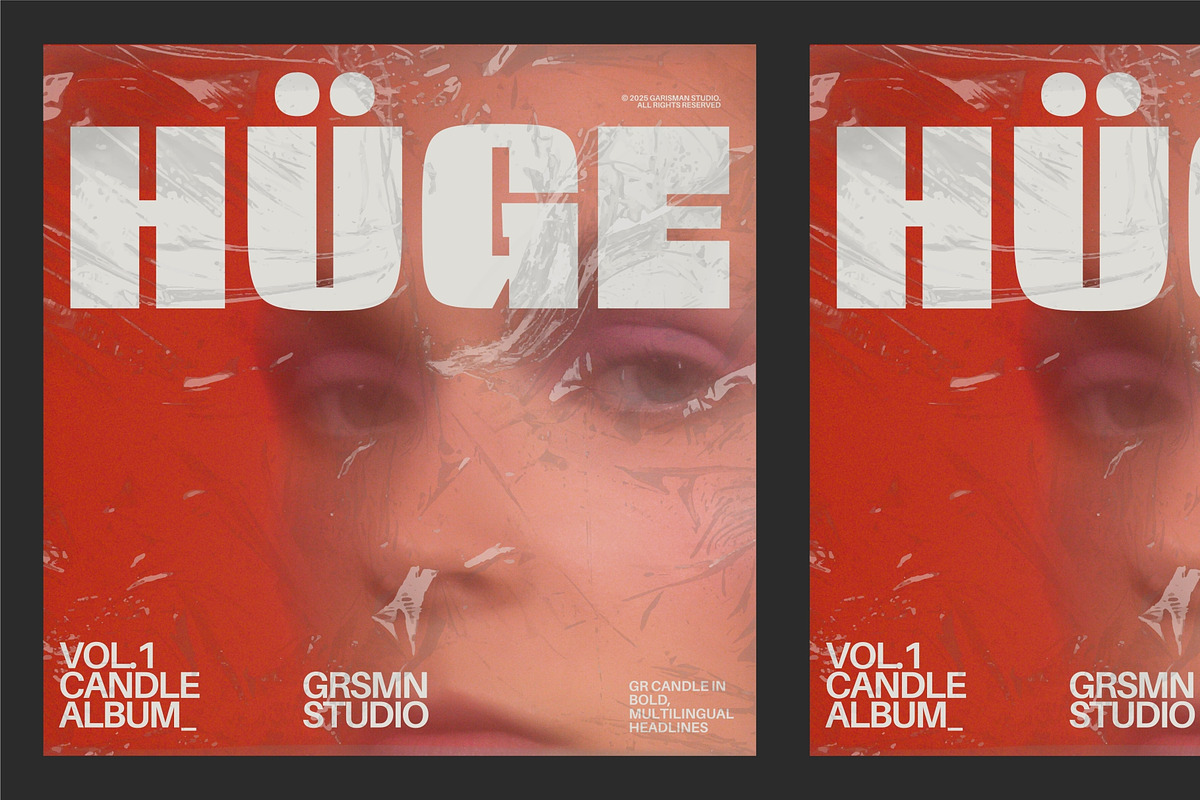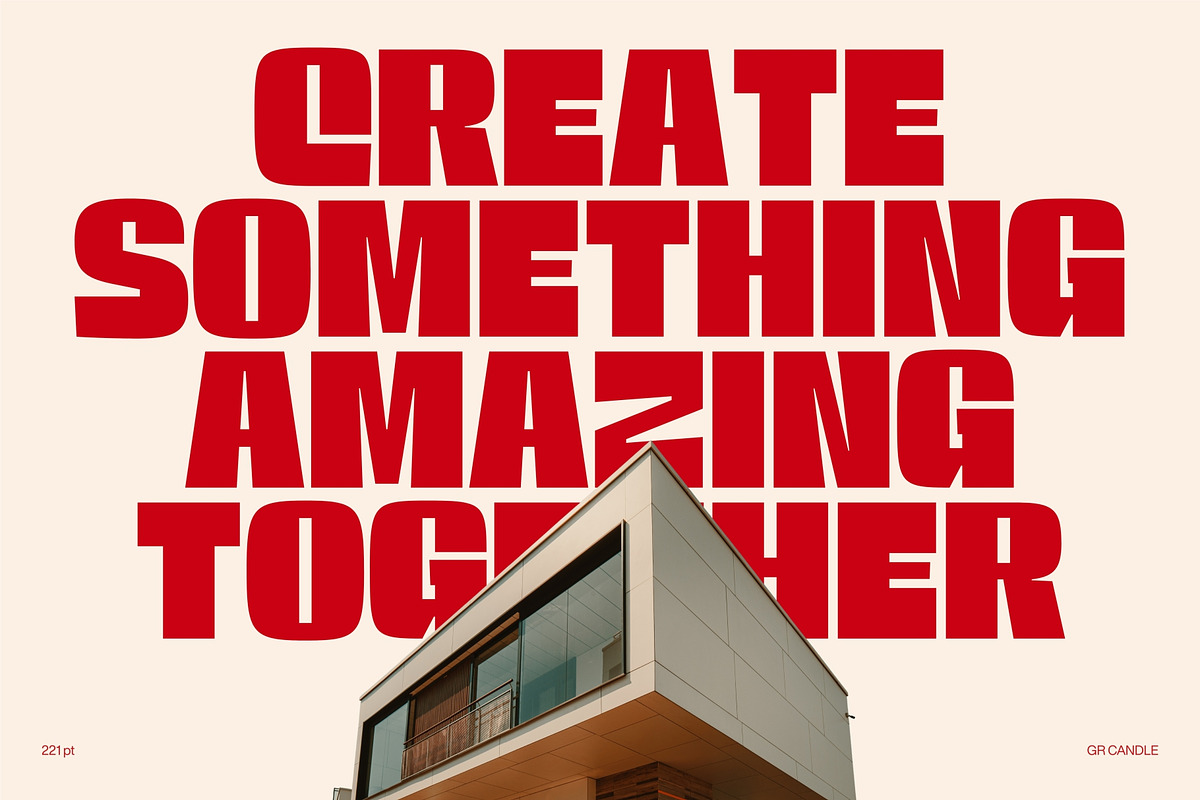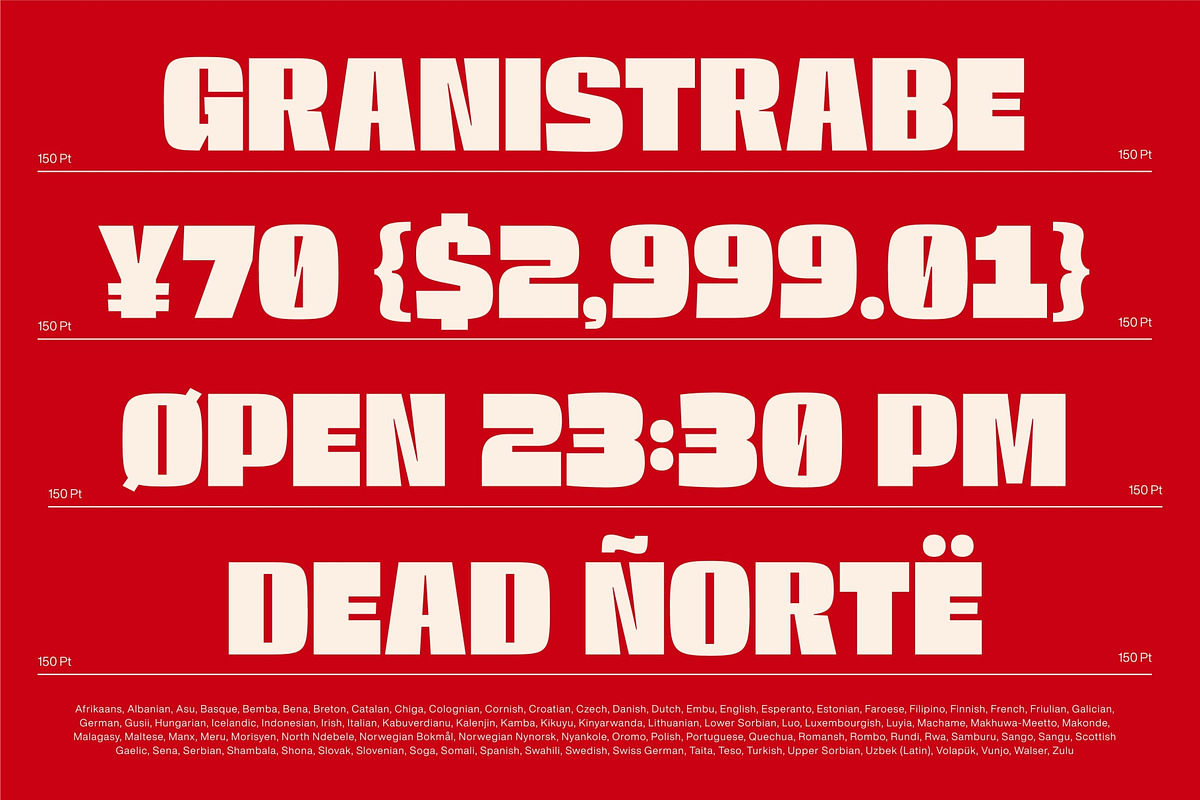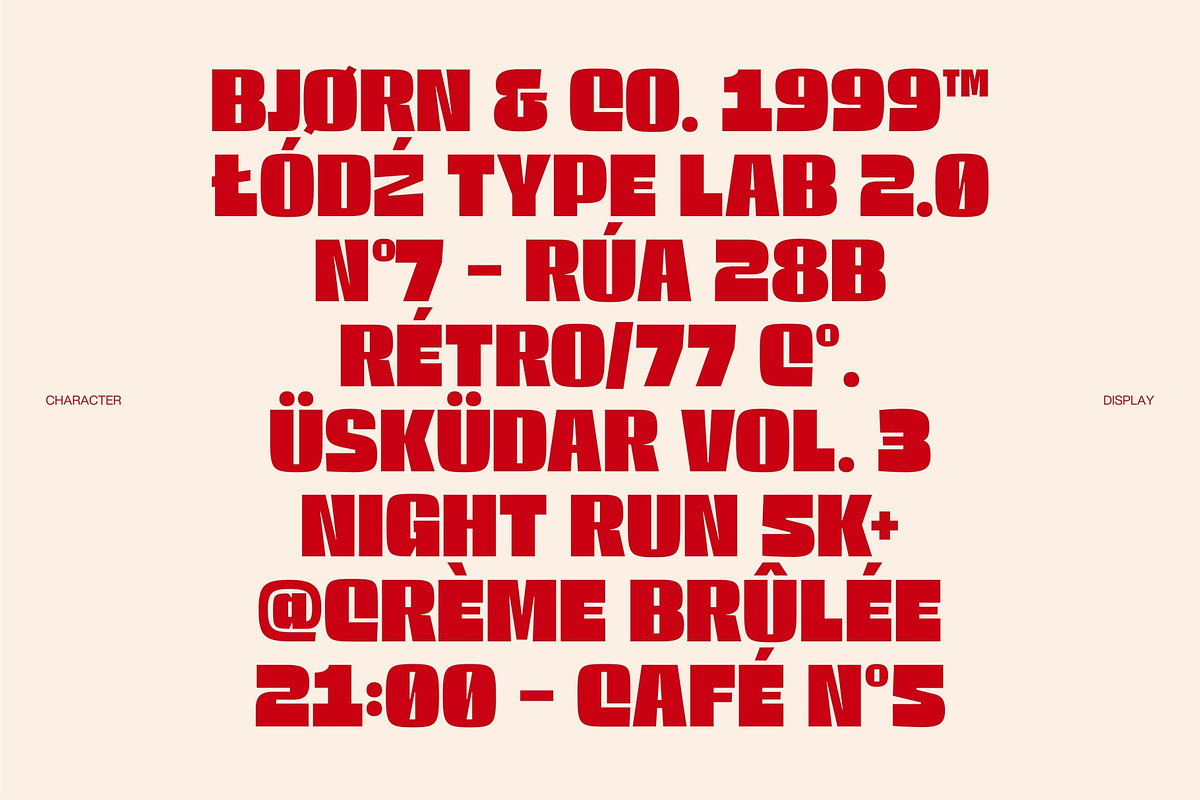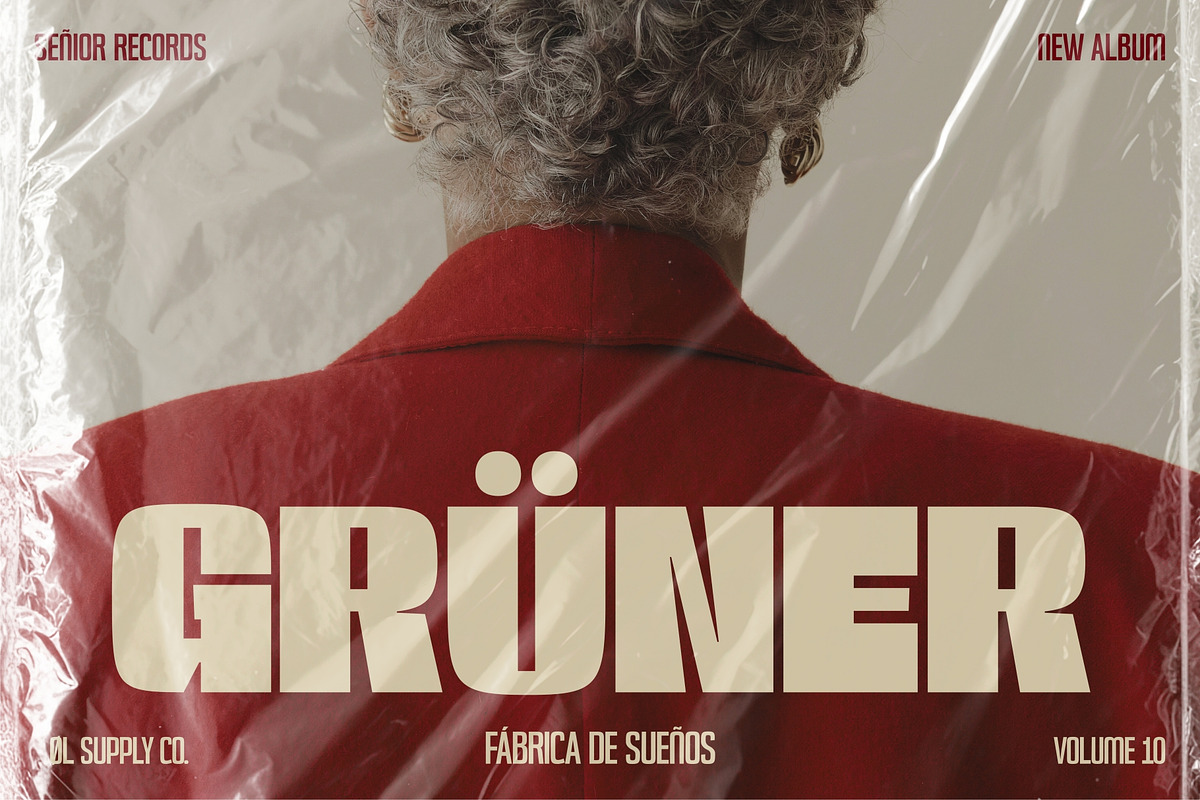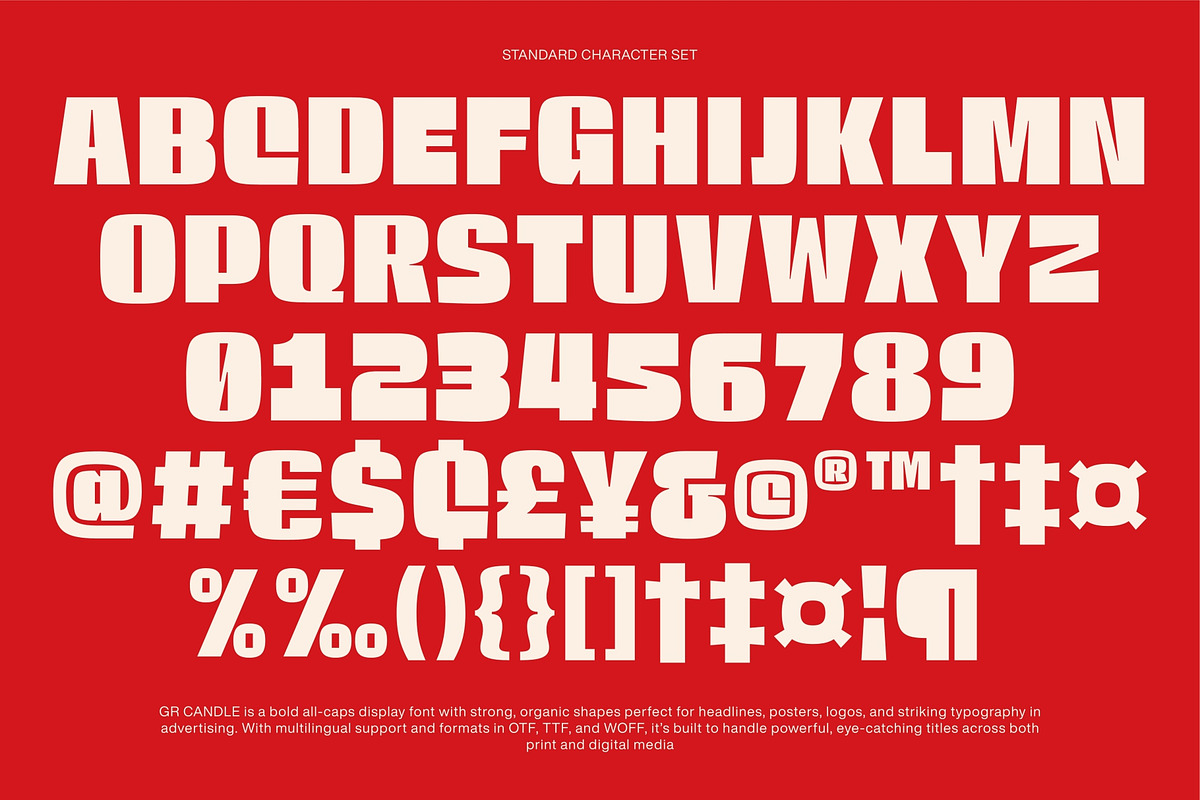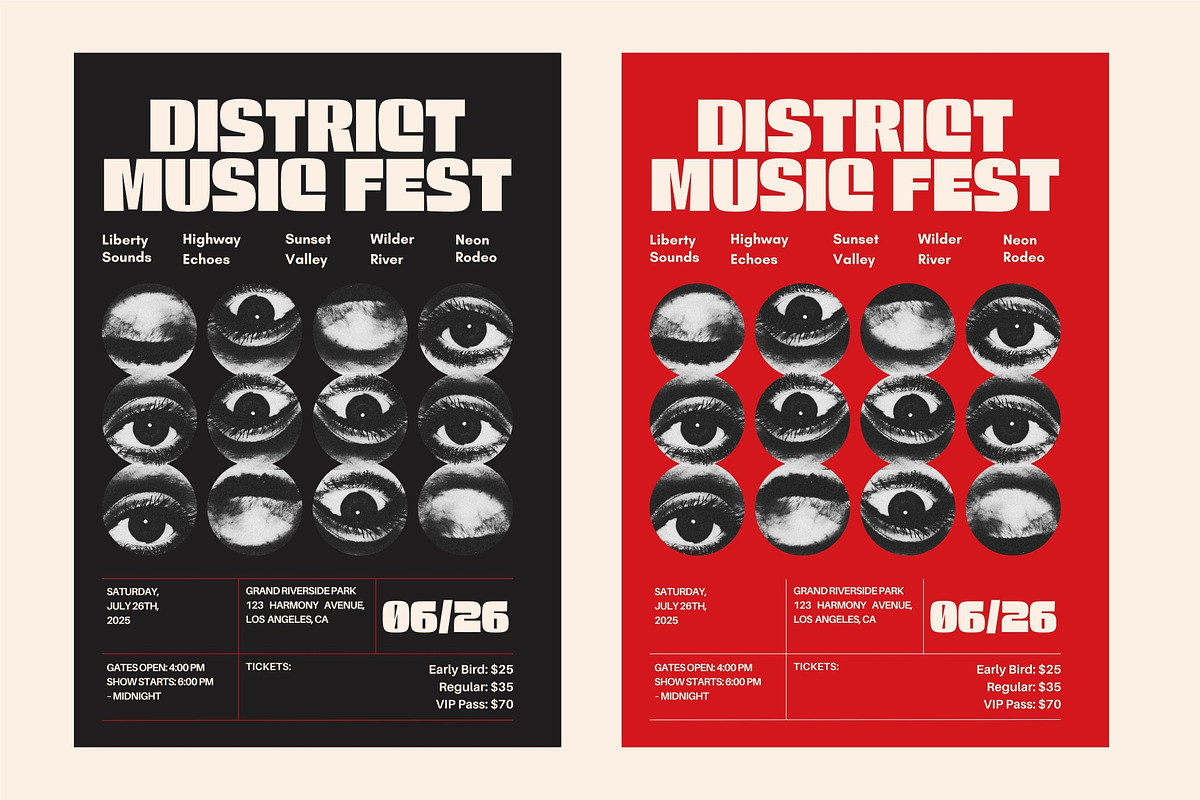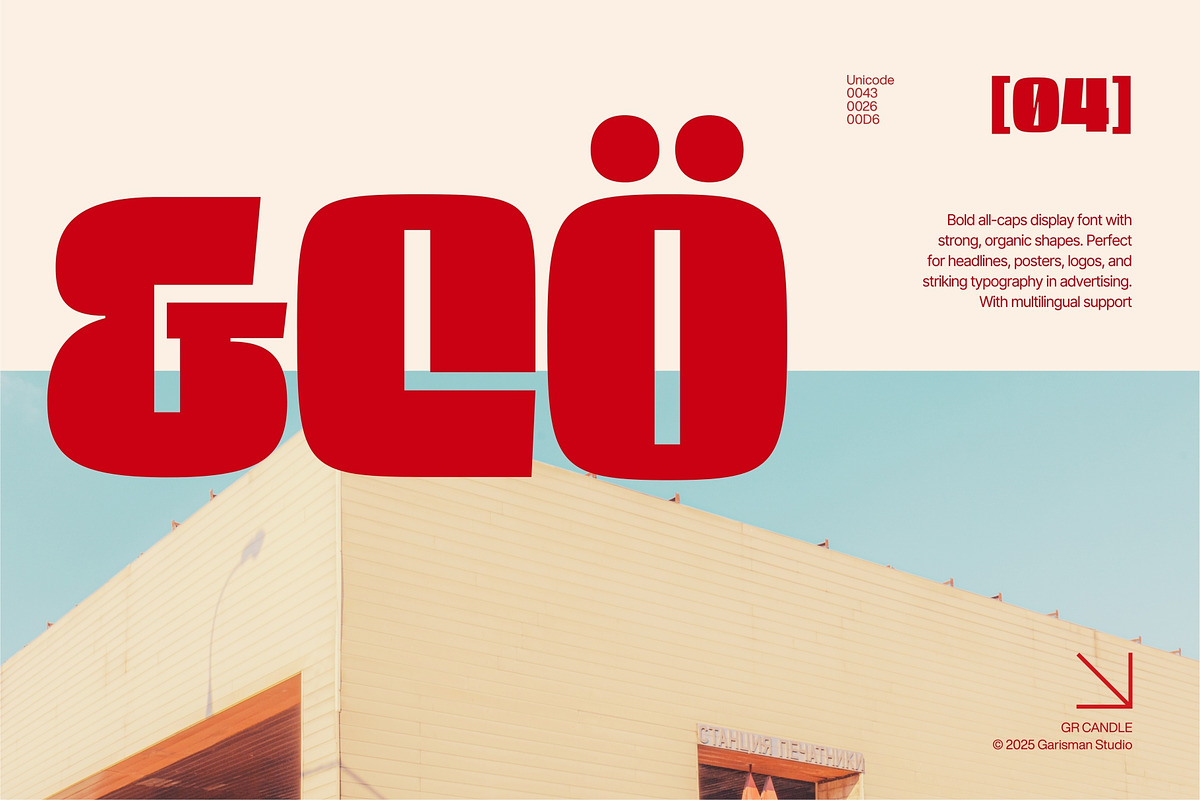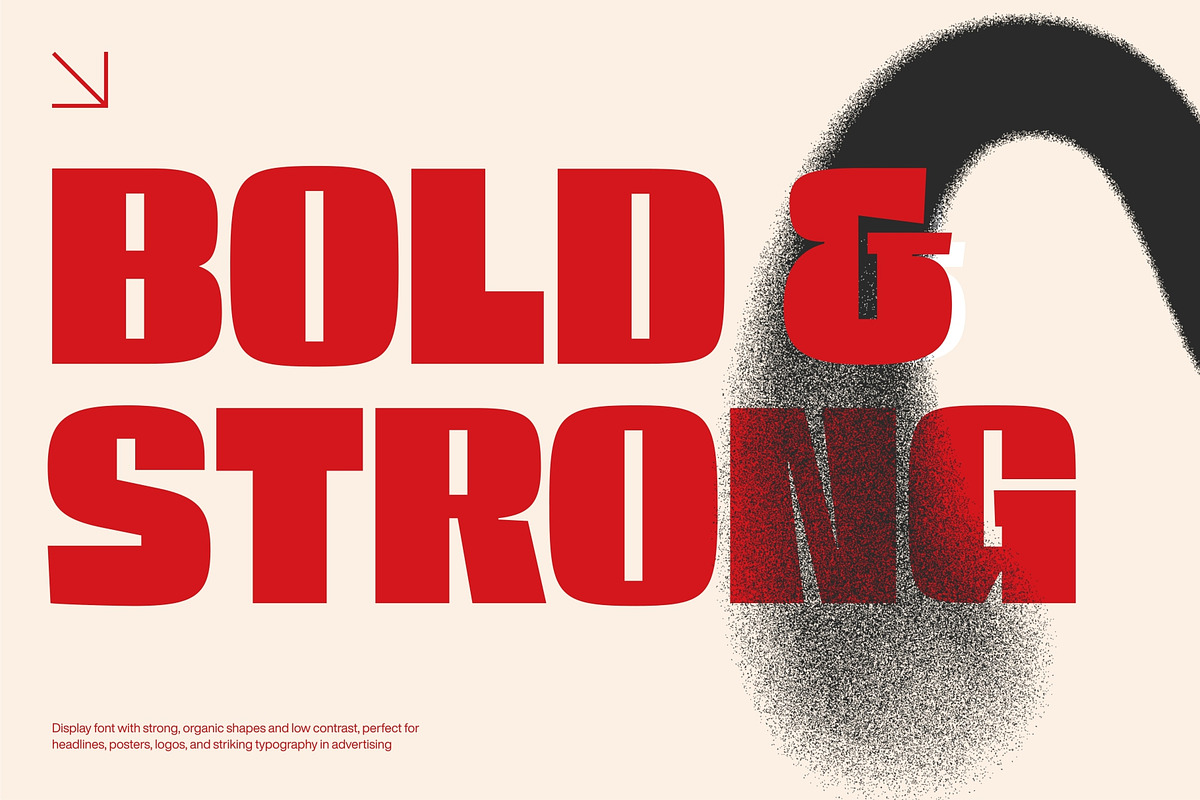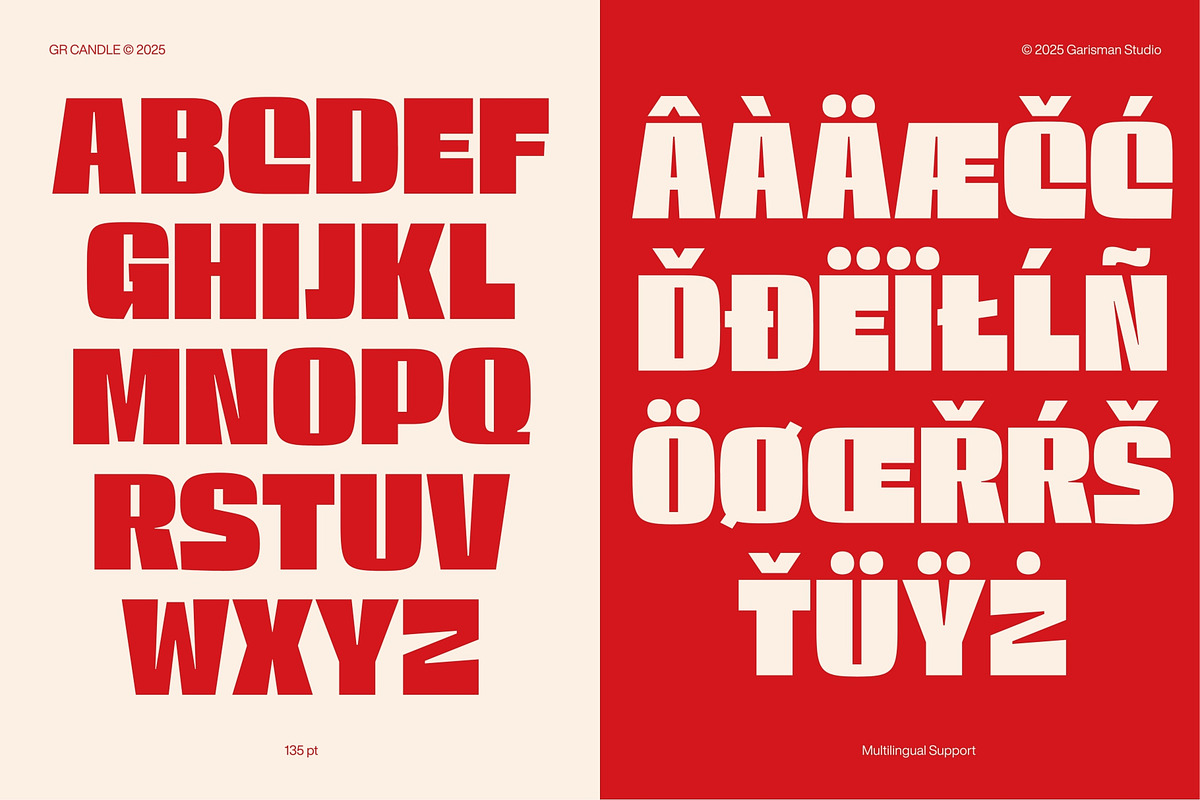
GR CANDLE - Bold Display
Looking for a clean bold sans serif that makes your titles stand out without getting in the way of the design? Meet GR Candle – a bold sans serif display font with one strong regular style, built for simple, impactful typography.
The shapes are straightforward and strong, giving your headlines a professional look that’s easy to read at any size. OpenType features include stylistic alternates for subtle variation and fractions for clean numeric layouts, making it a flexible choice for layout and branding work.
If you need a bold sans serif display font for modern logos, posters, and titles, GR Candle is a simple, reliable tool you’ll keep coming back to.
Features: Stylistic Alternates, Fractions